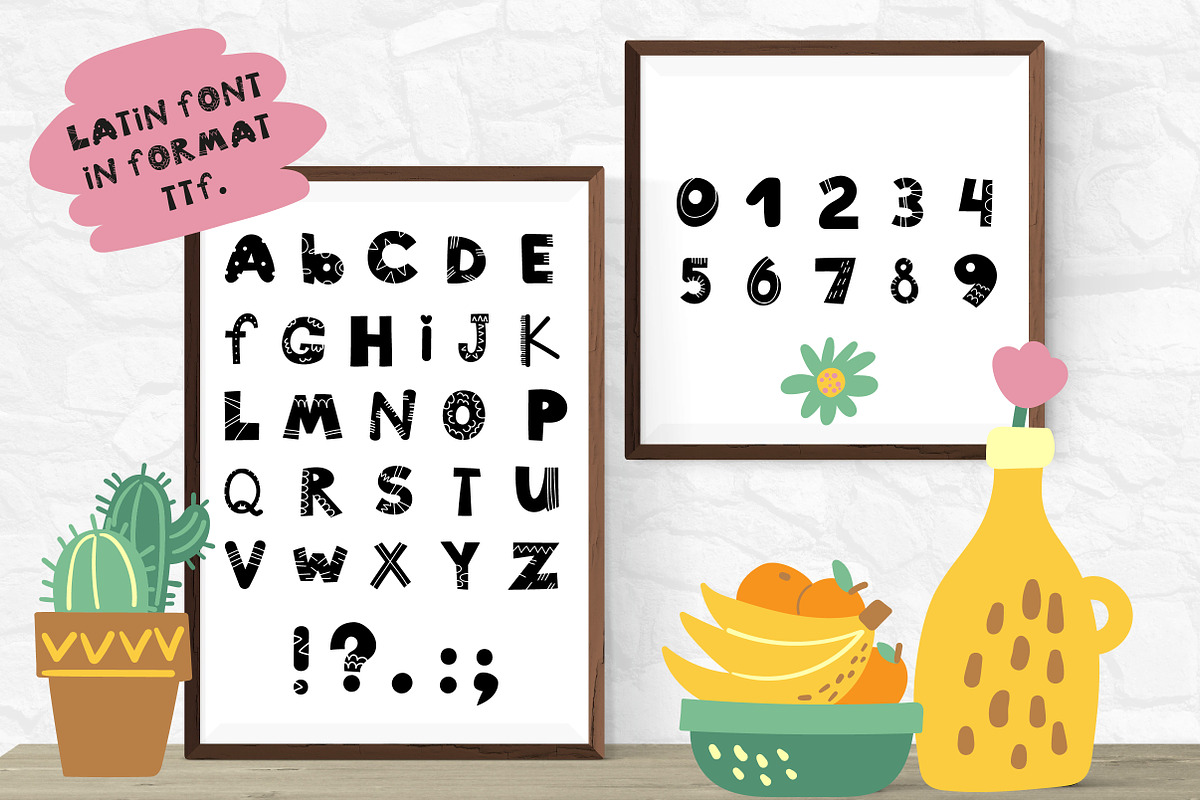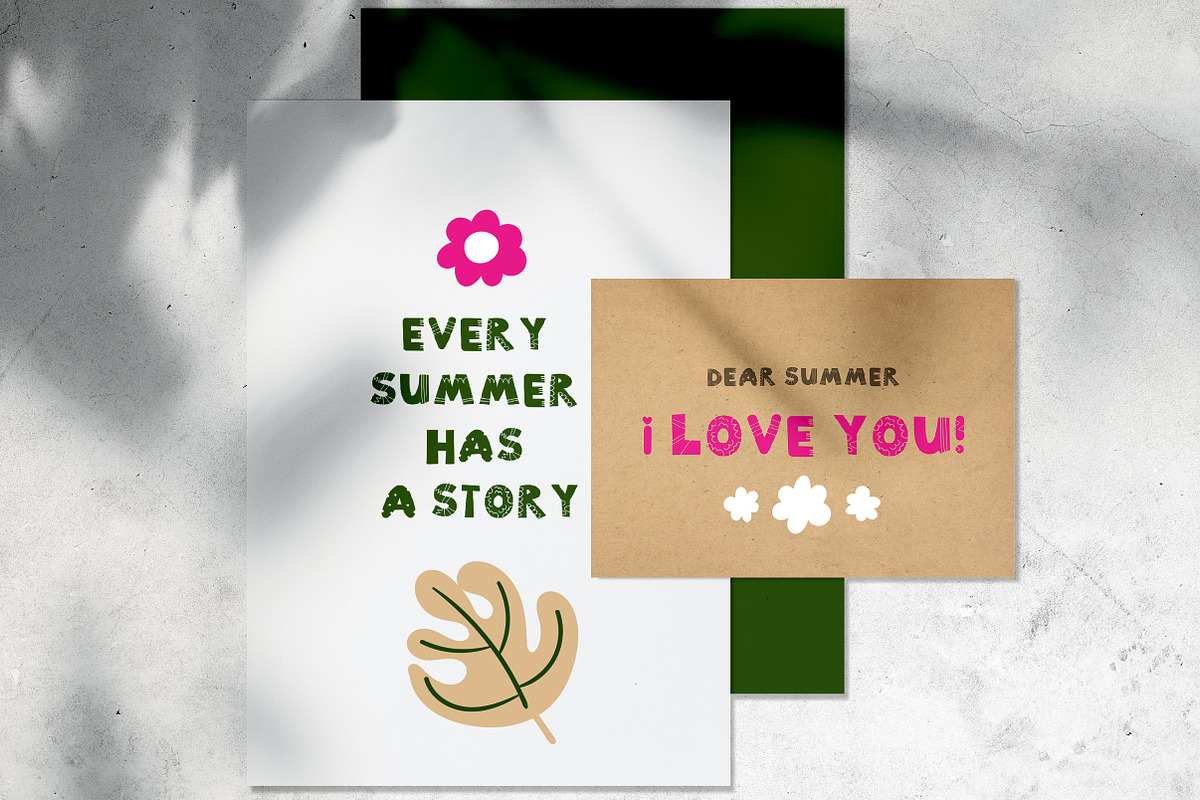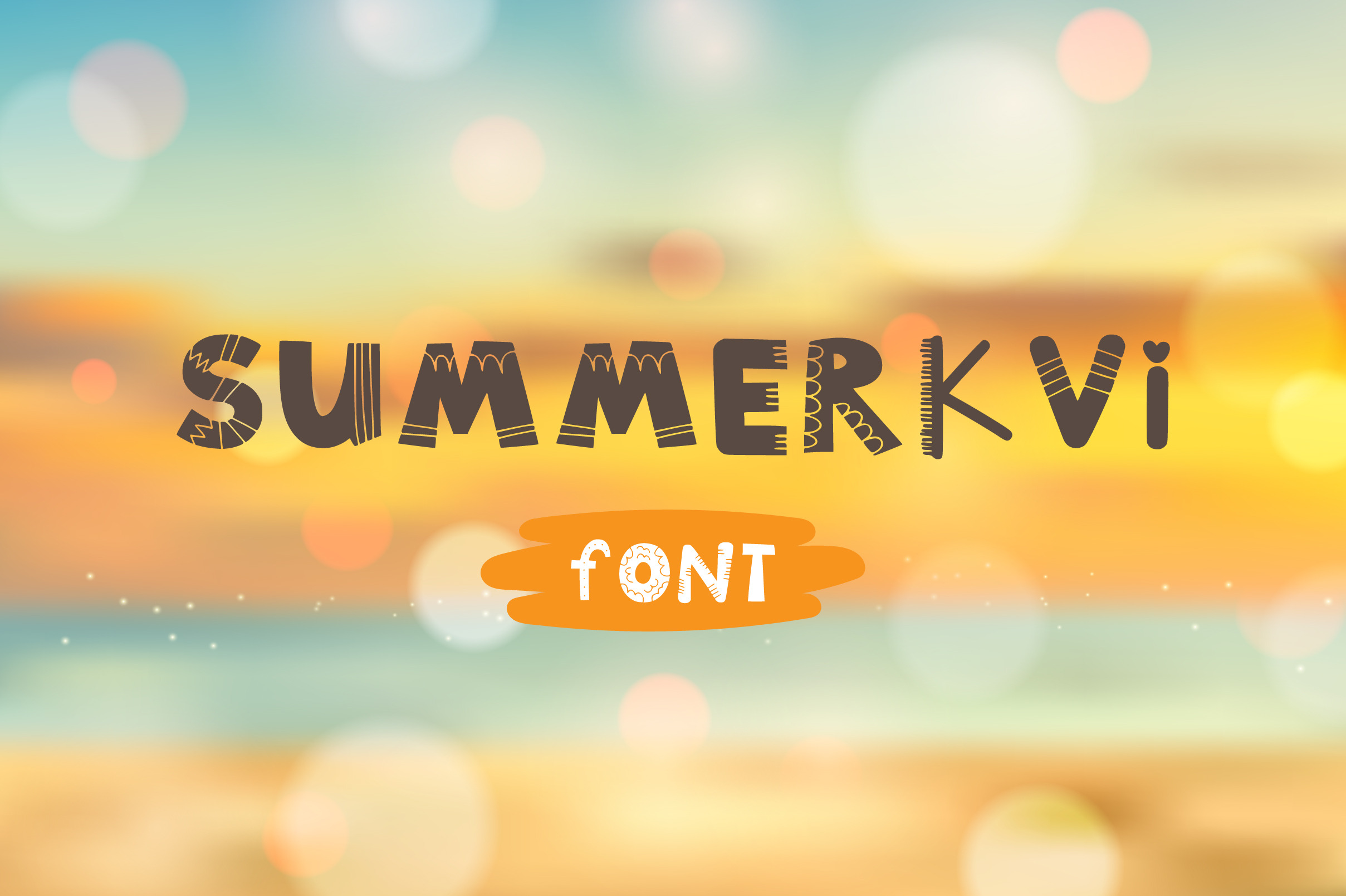
TTF typeface ''Summerkvi''
''Summerkvi'' is cute stylized font. It Will be perfect for the decoration of postcards, posters, and different printing products.